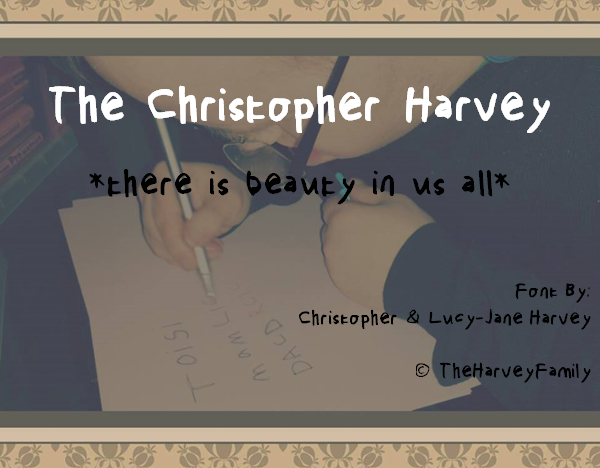
Font name: | The Christopher Harvey |
Author: | Lucy-Jane Harvey |
Note by Lucy-Jane Harvey | |
This font has been handwritten by my brother, Christopher. He is a very special person and he has Down Syndrome. Please feel free to share this beautiful creation by him. |